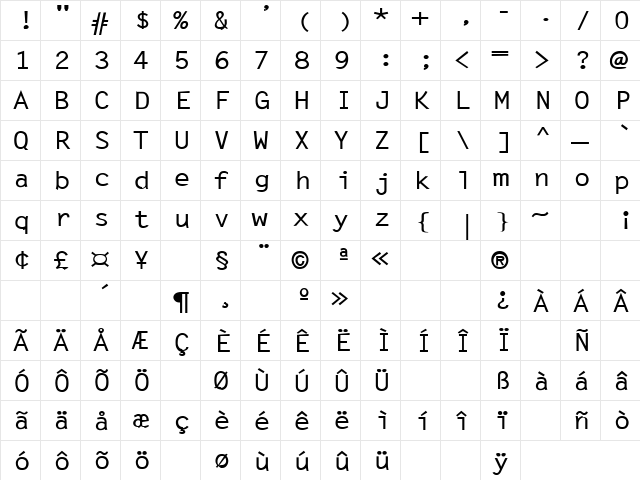
Celebration Day 9 Regular Font Preview
Celebration Day 9 Regular
Celebration Day 9 Regular Font Details
Design Context for Celebration Day 9 Typeface
Celebration Day 9 takes a measured approach to typography — its balanced proportions and neutral character make it a reliable workhorse for both digital and print work.